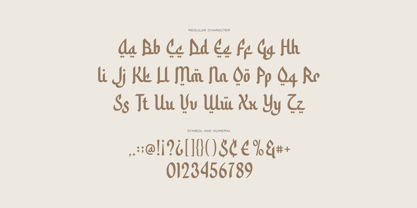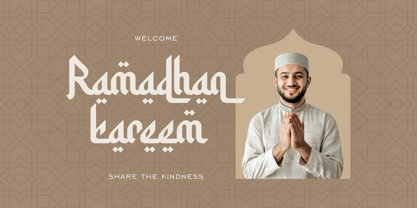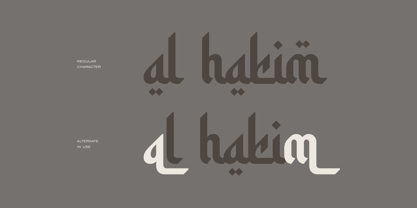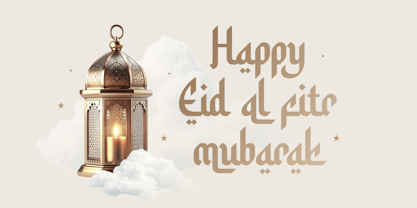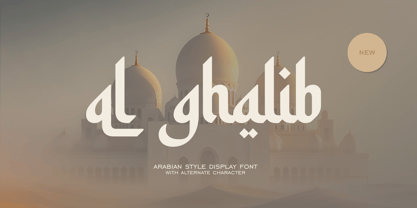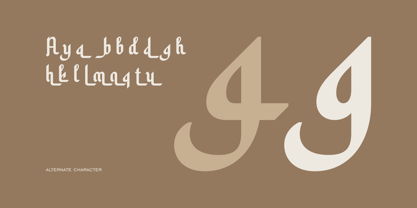
Al Ghalib
von Runsell Type
Die Schriftfamilie Al Ghalib wurde von Satia Hayu Prabowo entworfen und von Runsell Type veröffentlicht. Al Ghalib enthält 1 Stile.
Al Ghalib inspired from the timeless beauty of Arabic script, this display font captures the essence of traditional calligraphy while embracing a bold, modern twist. With its flowing, sweeping curves and geometric elegance, this font exudes a sense of sophistication and cultural richness. Ideal for headlines, posters, logos, and branding that aim to evoke a sense of heritage and contemporary flair, it brings a distinctive, exotic touch to any design. The balance between fluidity and structure makes this font perfect for projects that demand attention and a strong visual presence
Designer: Satia Hayu Prabowo
Herausgeber: Runsell Type
Foundry: Runsell Type
Eigentümer des Designs: Runsell Type